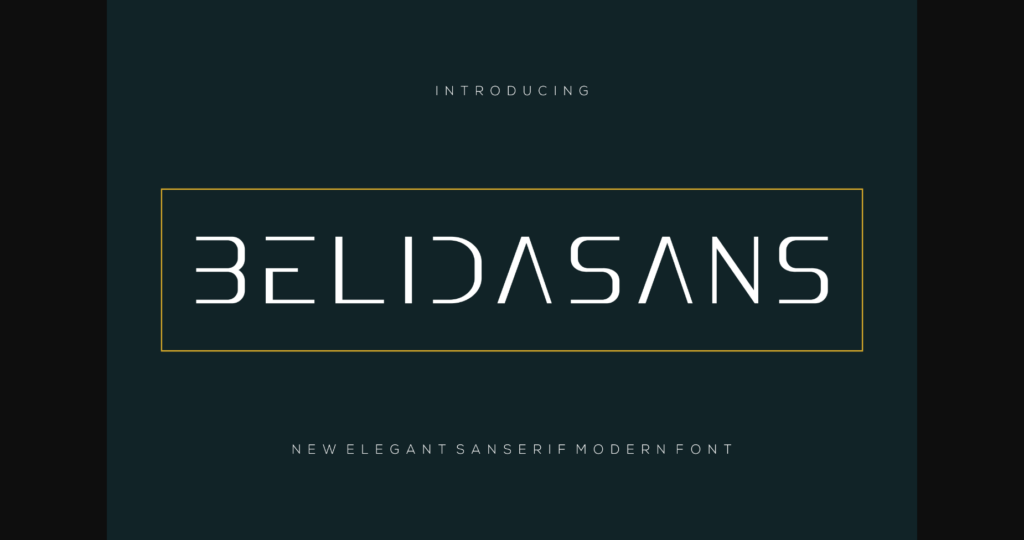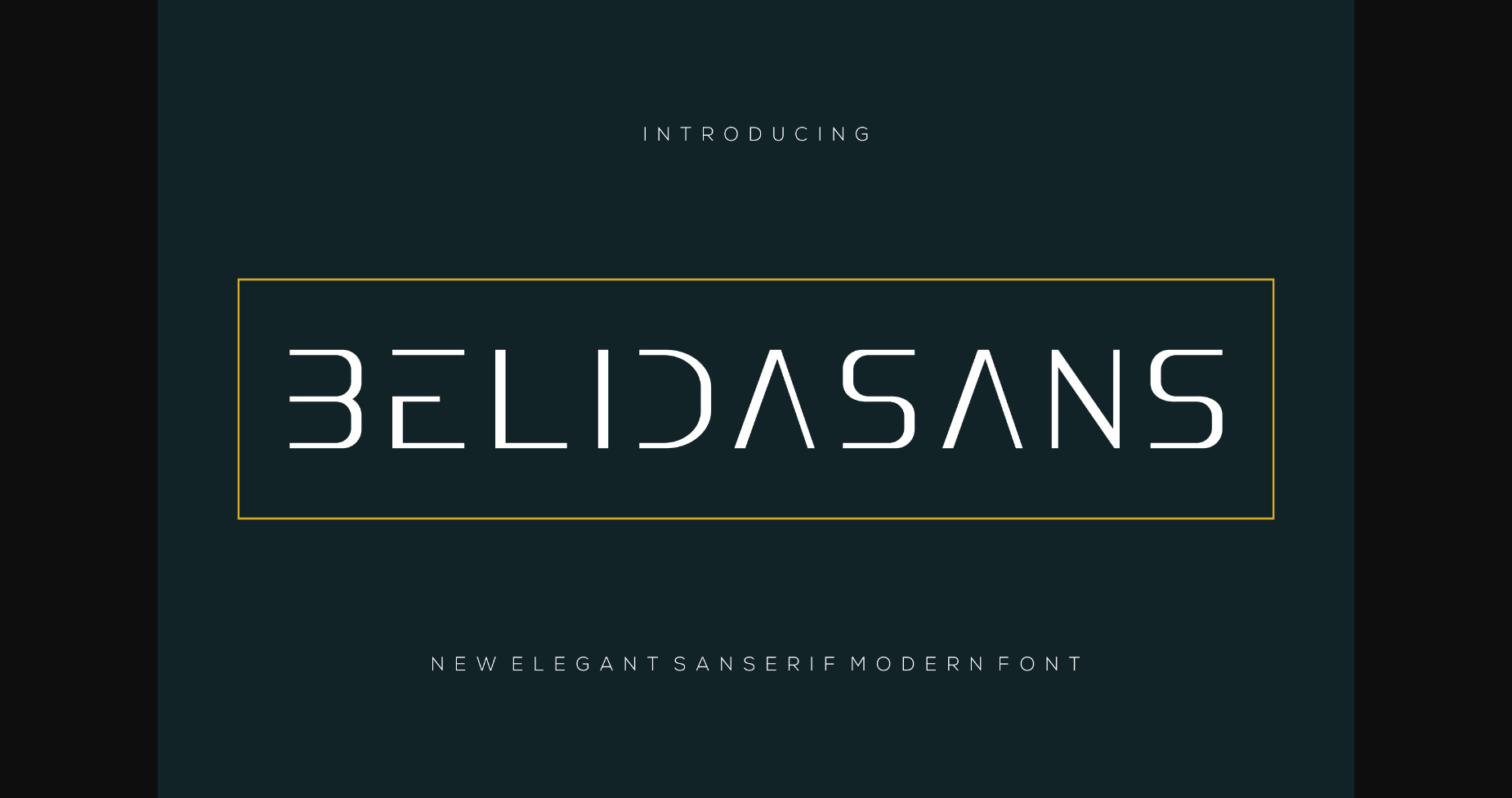
About Belidasans Font
Belidasans is a stylish and versatile sans serif font. Its elegant, professional yet still modern look makes it the perfect font for a wide spectrum of applications.